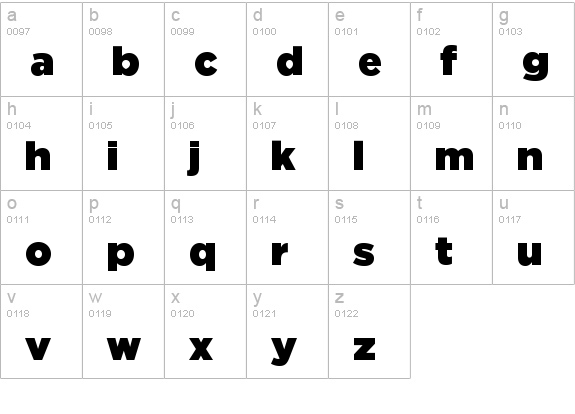
Gotham Ultra Font Details
Gotham Ultra is an extreme-weight, display variant in the Gotham typeface family \xE2\x80\x94 well suited to extreme display use where maximum visual weight is required.
Gotham Ultra is a modern and stylish font that exudes sophistication and professionalism. Its sleek and clean lines make it perfect for a wide range of design projects, from branding to editorial design. The bold and impactful nature of Gotham Ultra makes it stand out and grab attention, making it an excellent choice for headlines and titles. The free Gotham Ultra font is the perfect addition to any designer's toolkit, offering a versatile and elegant typeface that can elevate any project. Whether you're working on a website, poster, or logo design, Gotham Ultra is sure to make a statement. This highly sought-after font is freely available to download at FontsMarket.com, so you can start using it in your projects right away. Don't miss out on the opportunity to add Gotham Ultra to your font collection and take your designs to the next level.